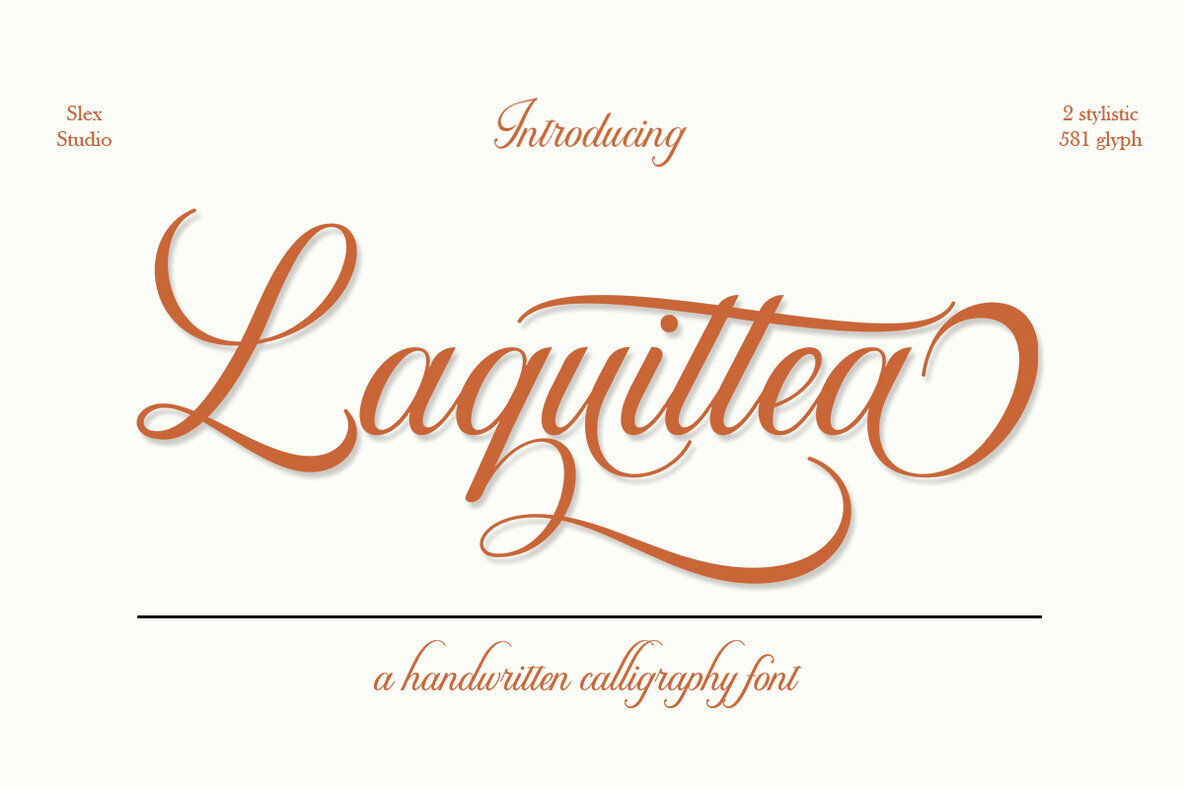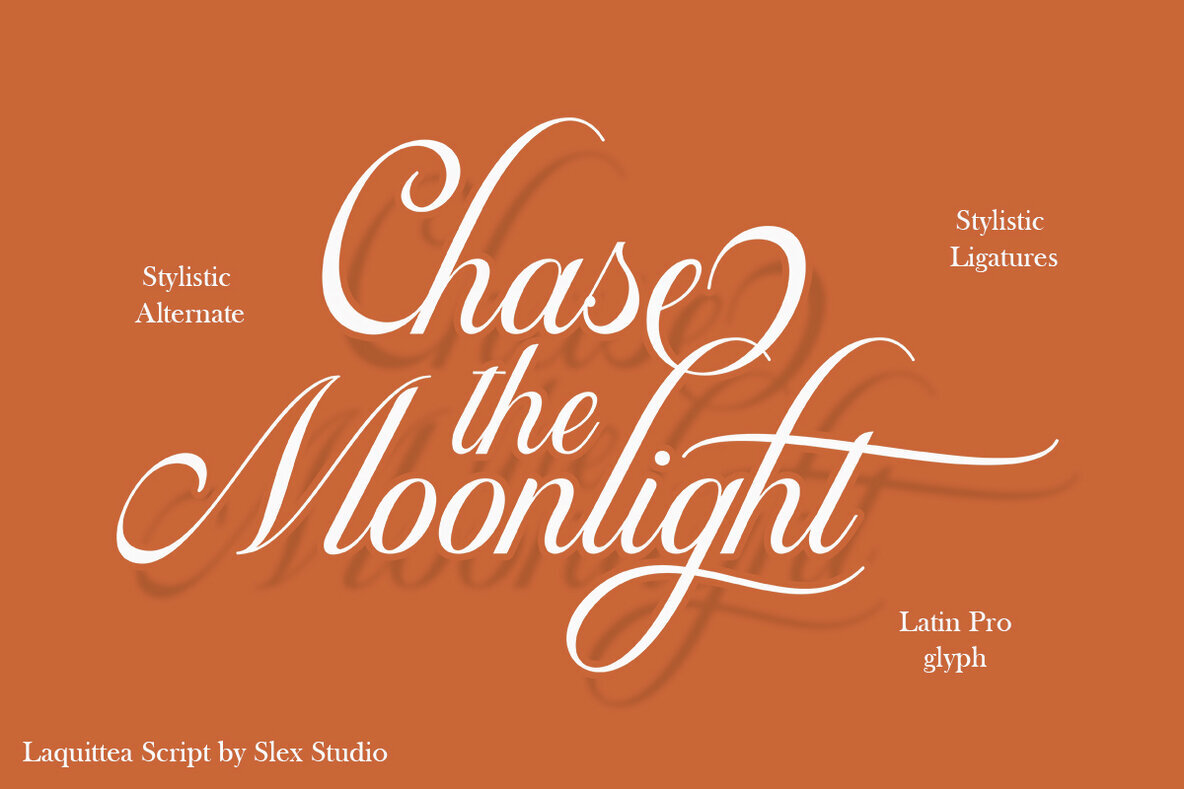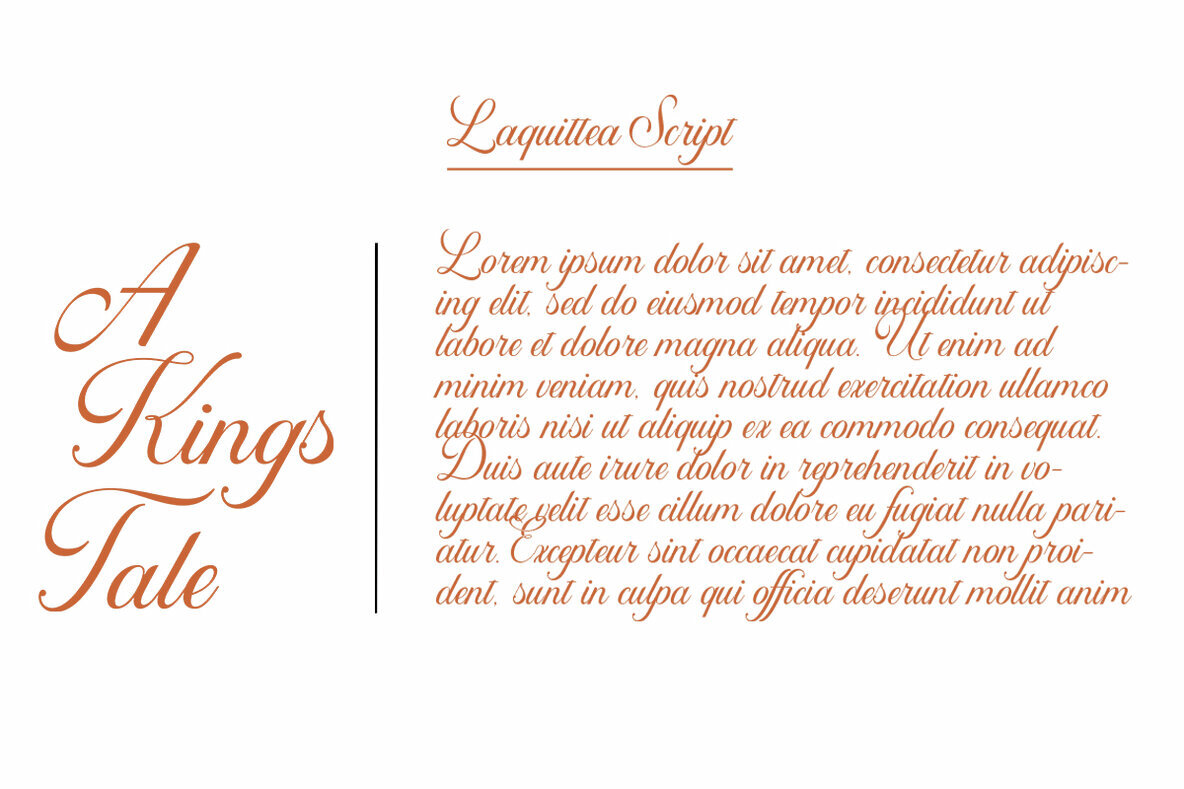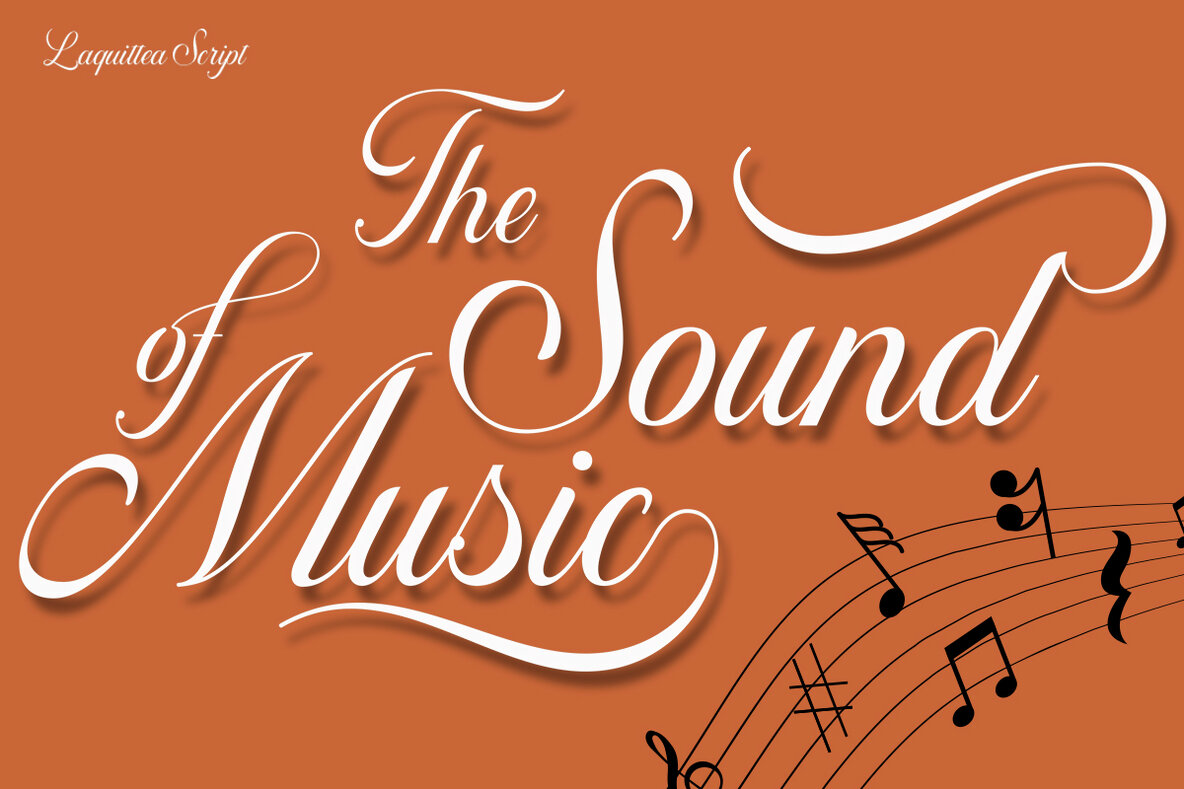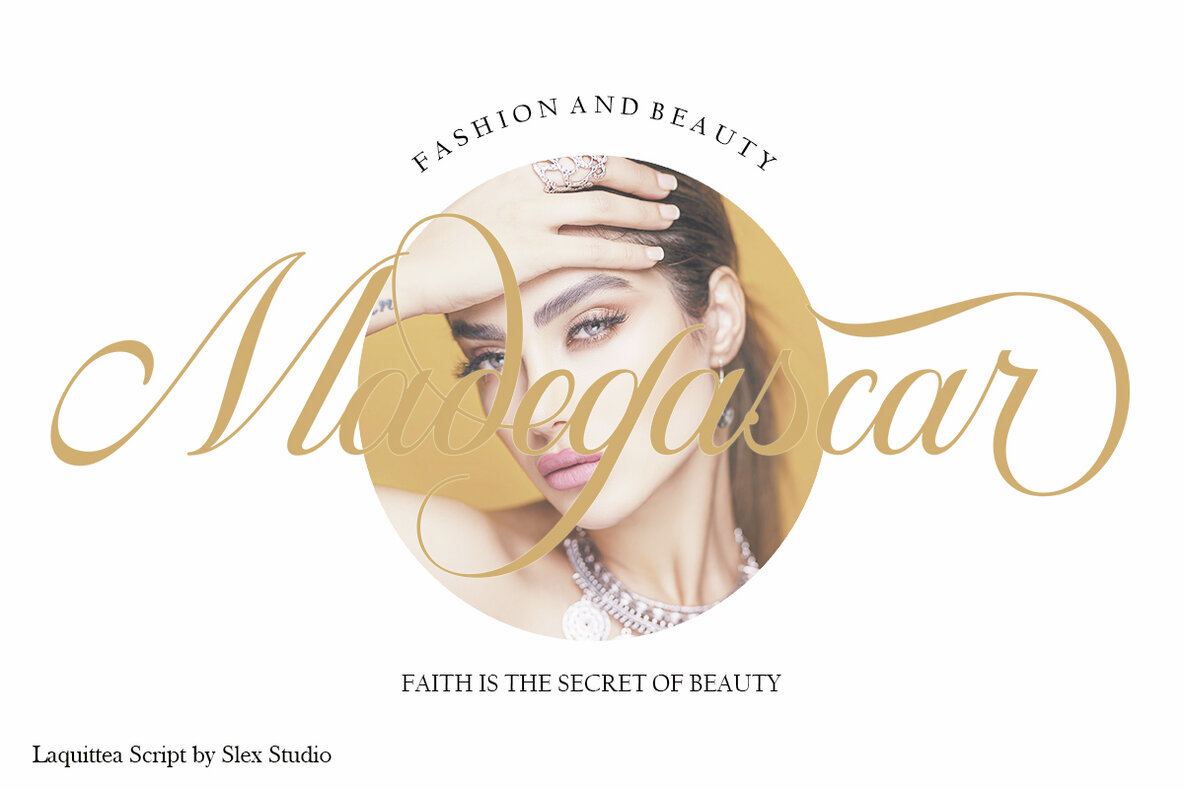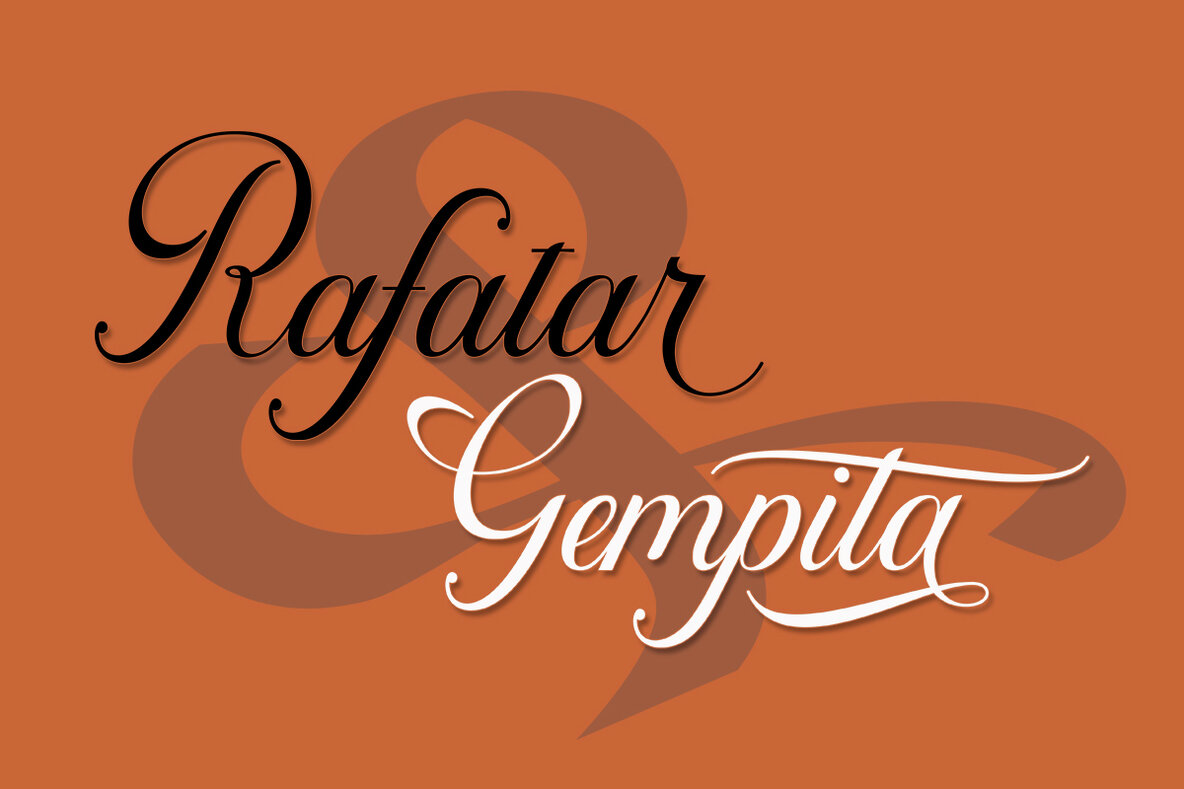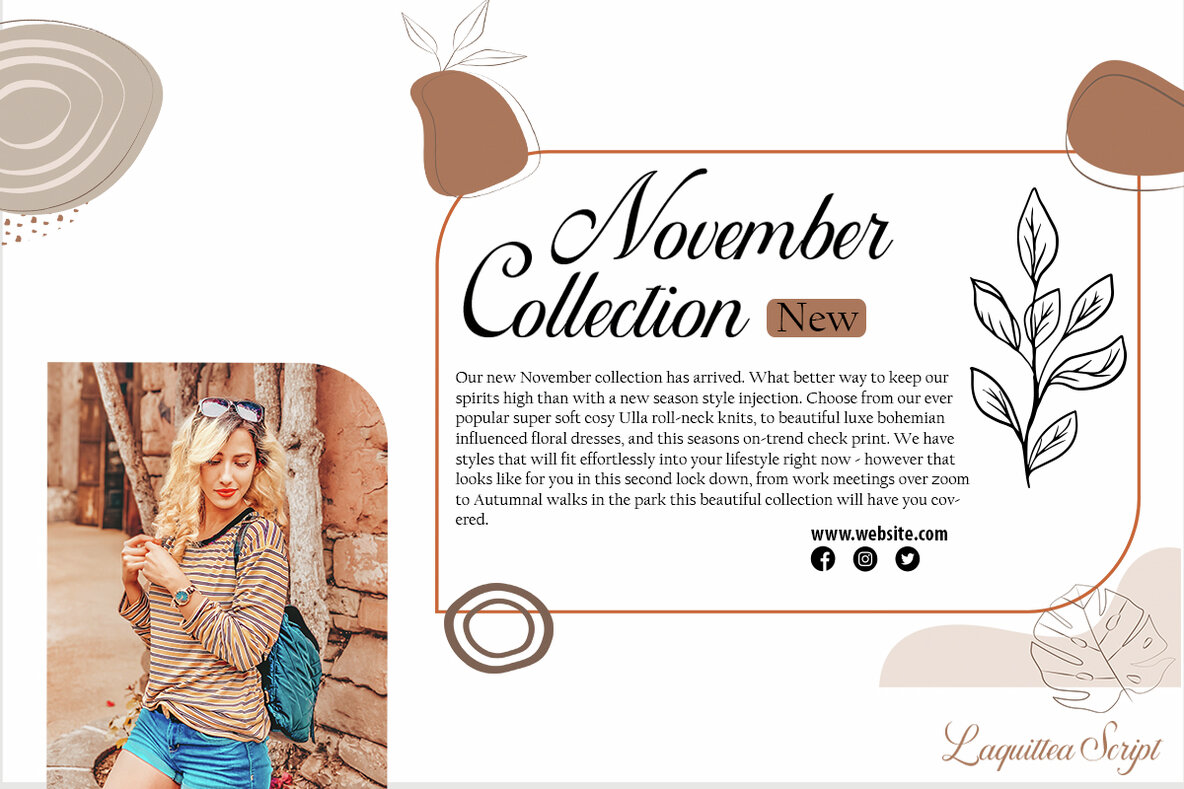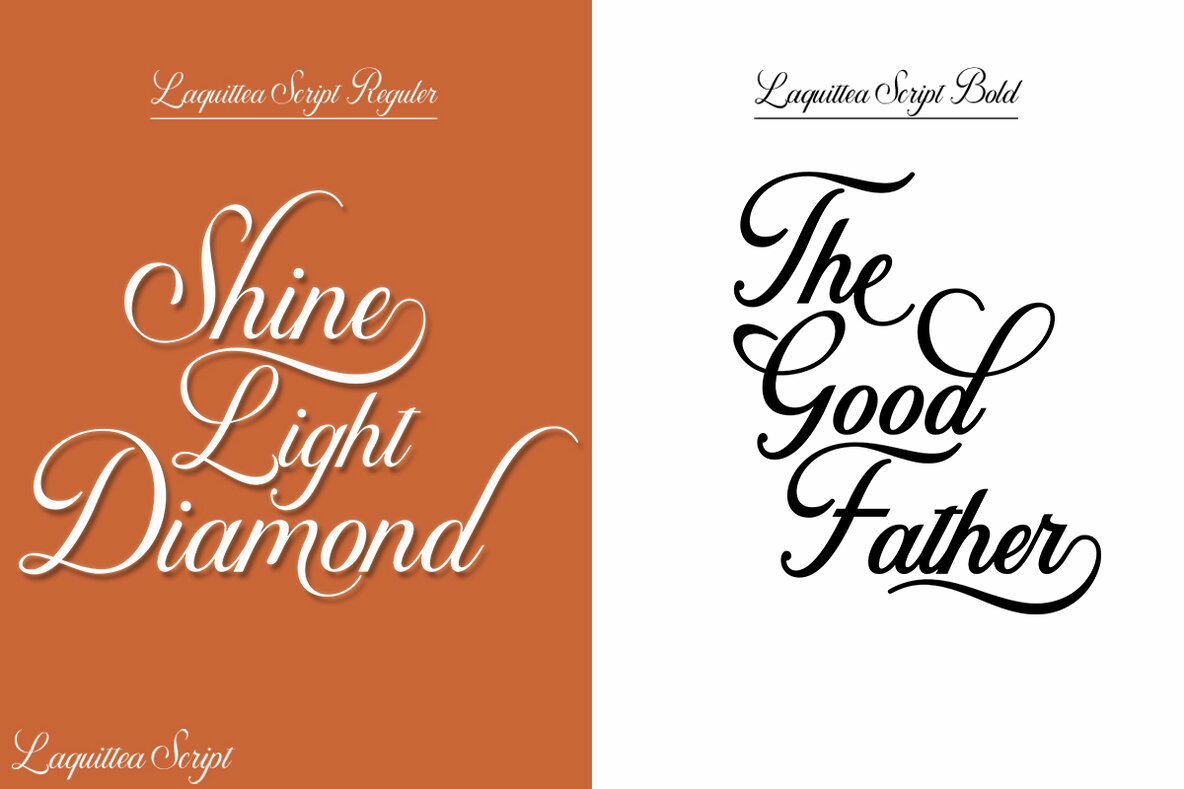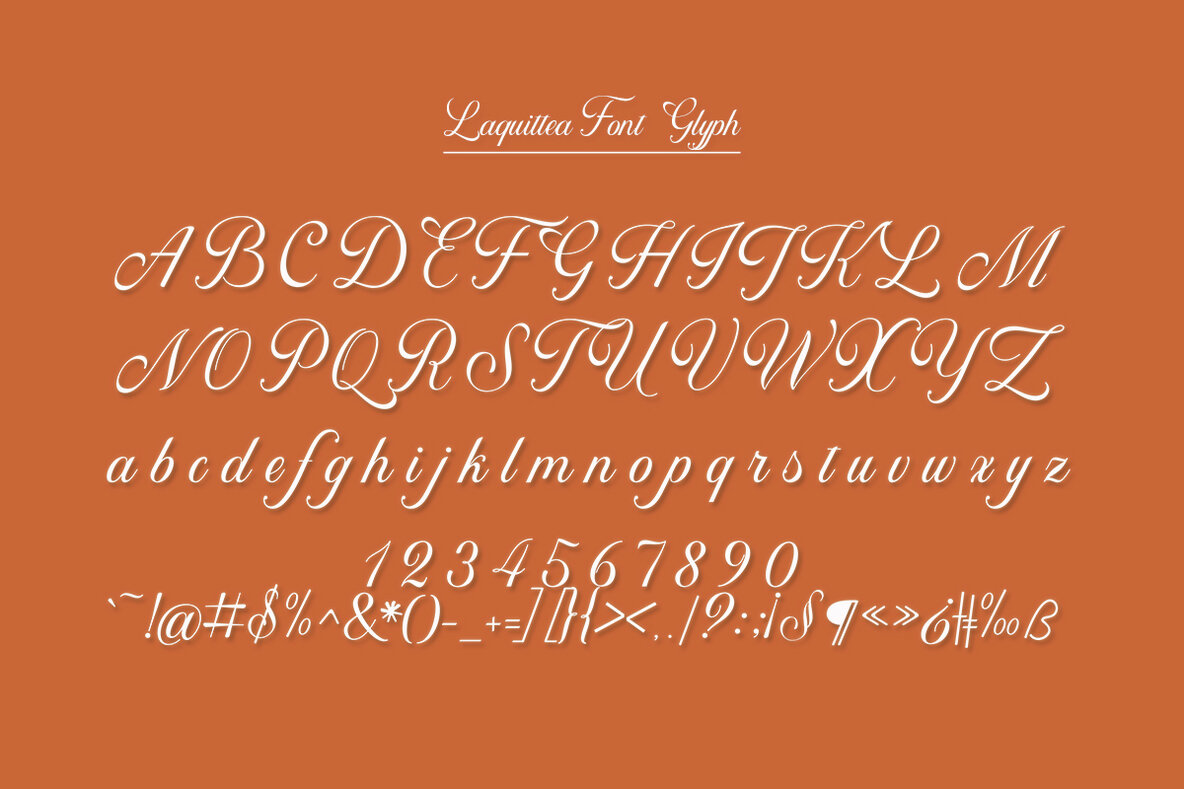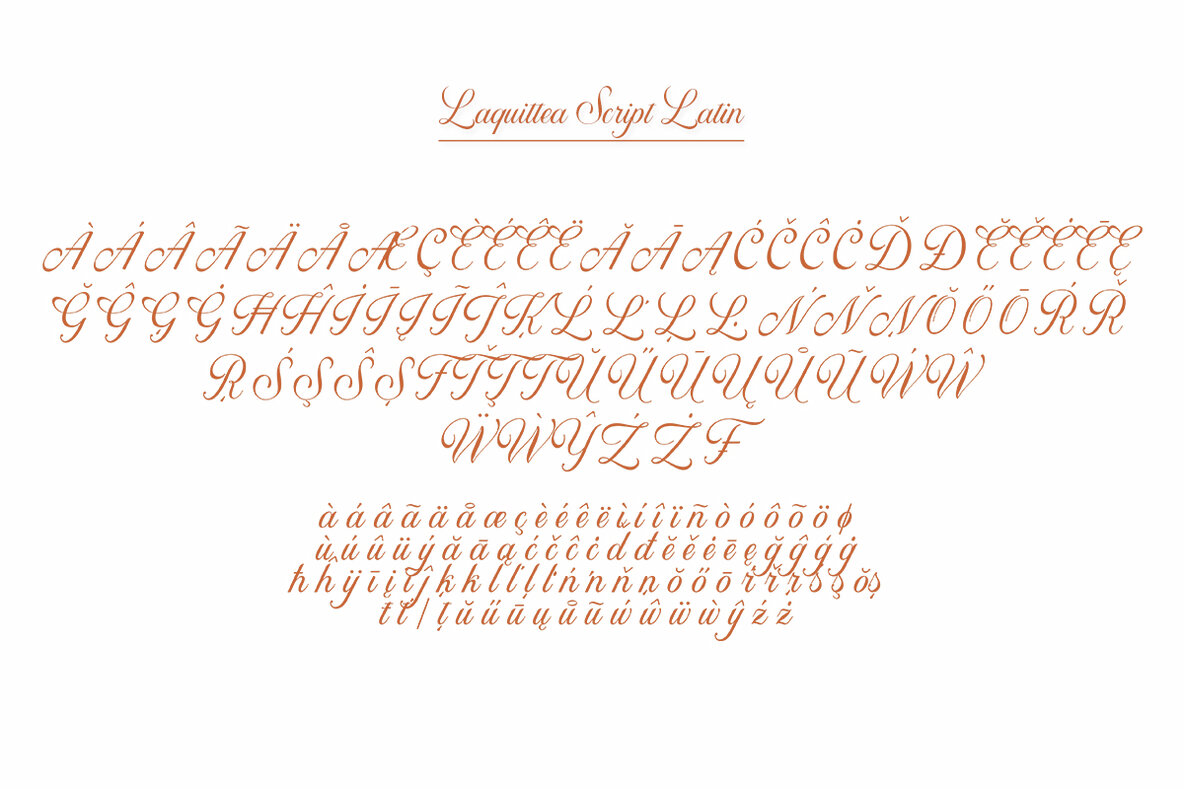
Laquittea Font
Laquittea brings refined calligraphy to contemporary design. This elegant script font is ideal for invitations, save the date cards, and projects that require a feminine touch. With its flowing lines and sophisticated ligatures, Laquittea adds a sense of classic beauty to wedding stationery and modern branding. Laquittea’s wide range of stylistic alternatives allows for seamless customization, making it easy to achieve a handwritten appearance in your designs. Its versatility suits both digital and print applications for creative professionals seeking a graceful, personalized aesthetic.Laquittea Modern Calligraphy Font